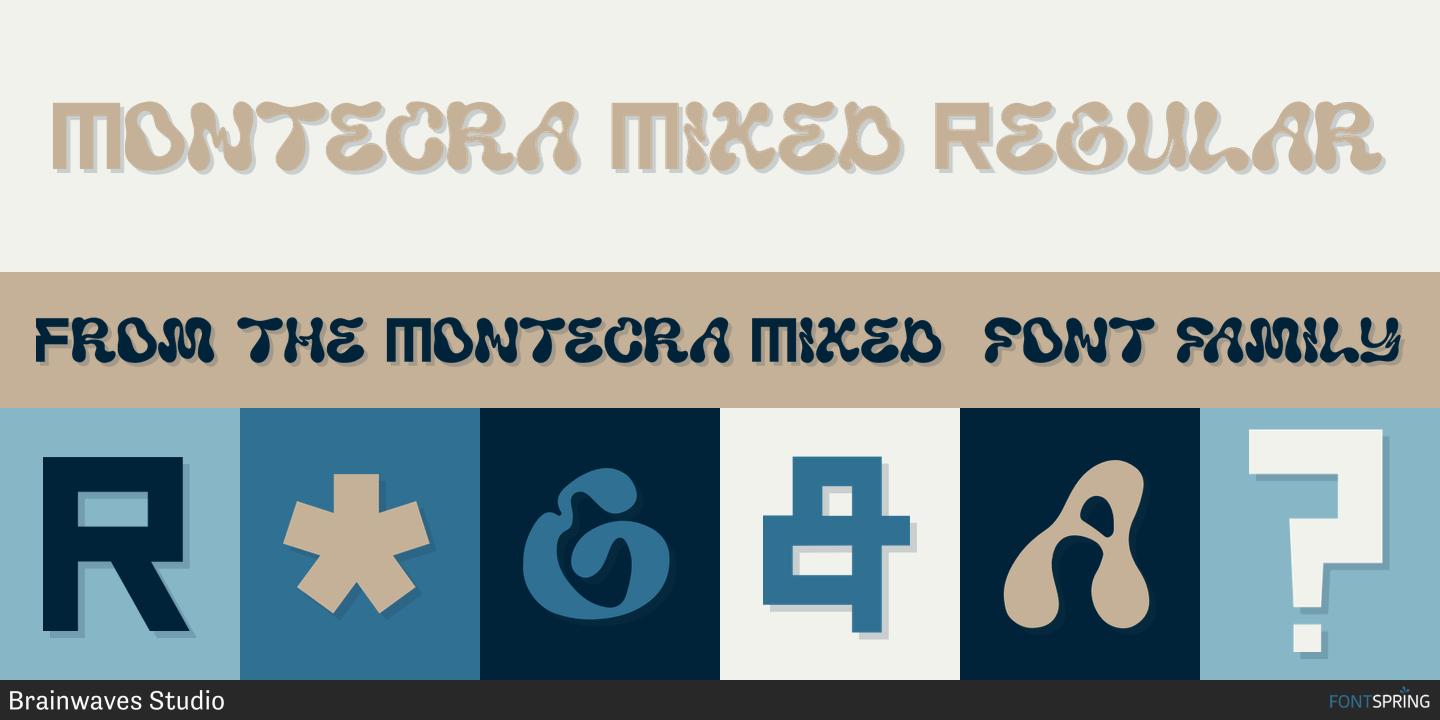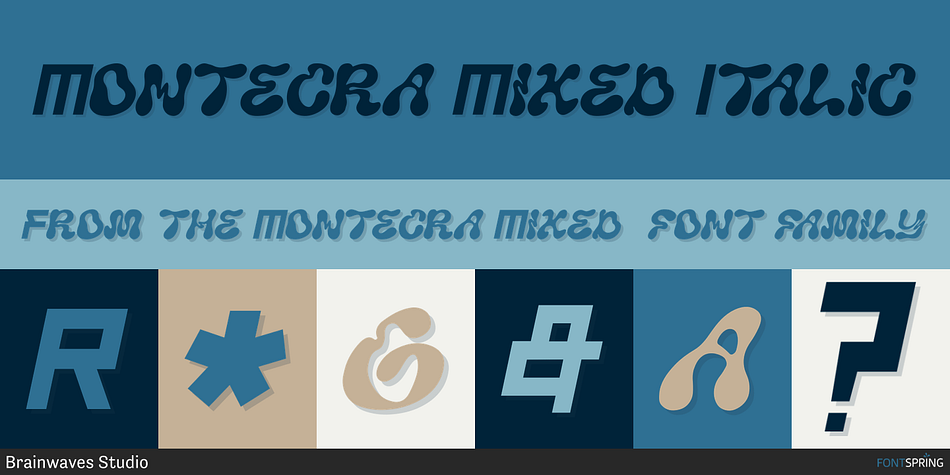
Montecra Mixed
Designed by Lucky Fitriadi, Montecra Mixed is a display font family. This typeface has two styles and was published by Brainwaves Studio.
Montecra Mixed is not your typical display font. It’s weird in the best way — a bold fusion of bubbly curves and sharp angles that instantly grabs attention. This typeface was built for creatives who want their work to feel fun, expressive, and totally unique.
From experimental posters and music artwork to edgy product packaging or Instagram visuals, Montecra Mixed brings energy and personality into every letter. It doesn’t just sit on the page — it moves.
Foundry Brainwaves Studio
Designer Lucky Fitriadi